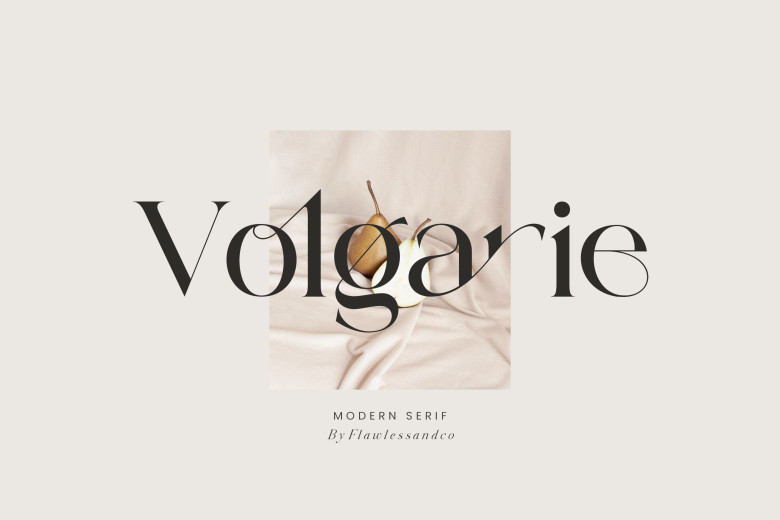
Volgarie Font
With a modern serif Volgarie, your design comes out differently unique! It has small lines or flourishes at the end of the strokes that make up letters and symbols. Every character has several alternates and ligatures, display fonts are intended to be used in and larger sizes as headers, titles, and other essential items that should attract attention.
Volgarie Serif Font